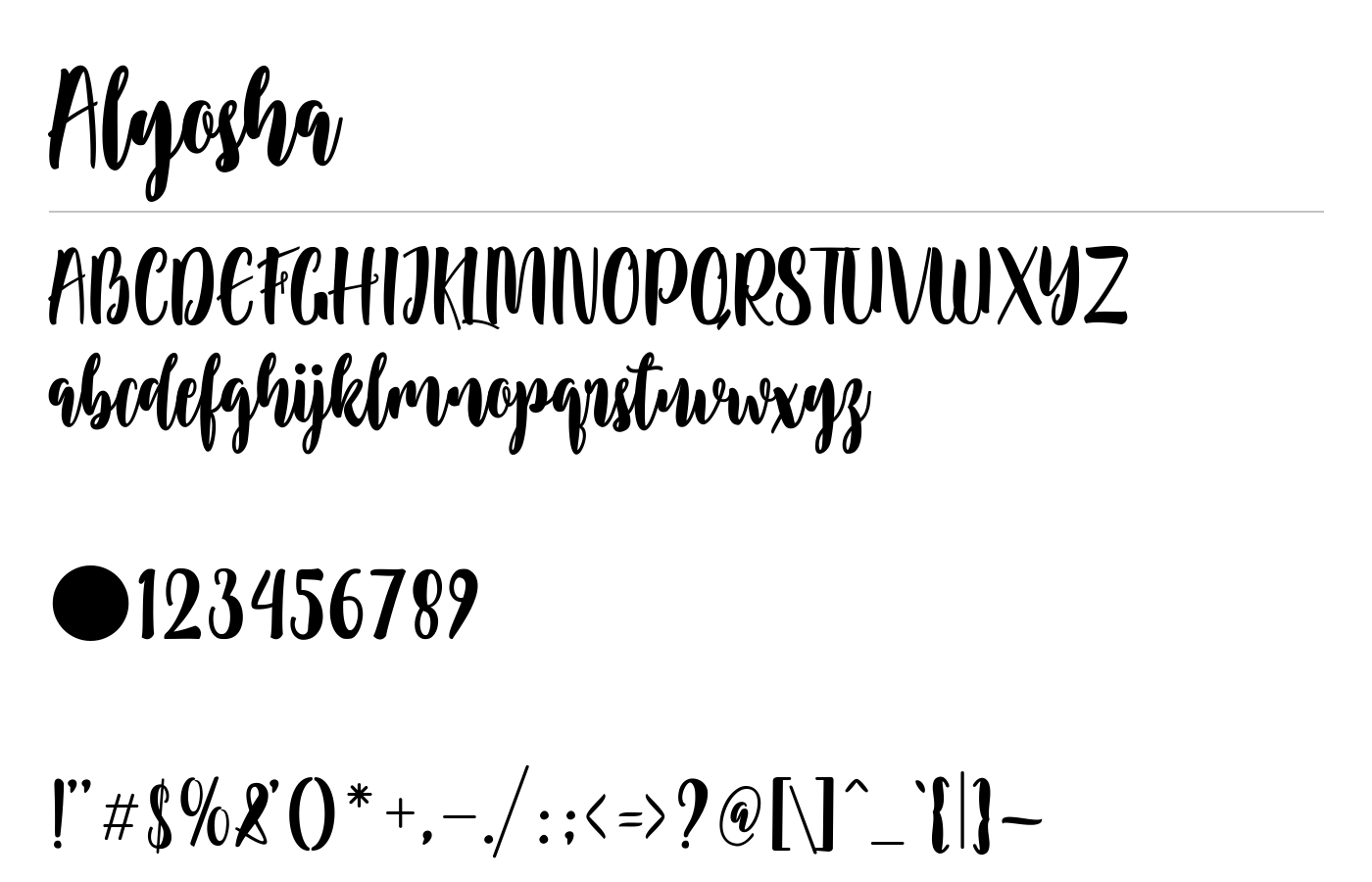
Alyosha is a lively and elegant script font with a hand-lettered feel, featuring smooth, flowing strokes and a medium weight that balances playfulness with readability. Its tall, narrow letterforms and casual style give it a friendly, approachable personality, making it ideal for branding, invitations, and creative projects seeking a personal touch. Alyosha works beautifully in headlines, logos, and packaging where a modern, charming script can add warmth and character.
Alyosha Font
About Alyosha Font